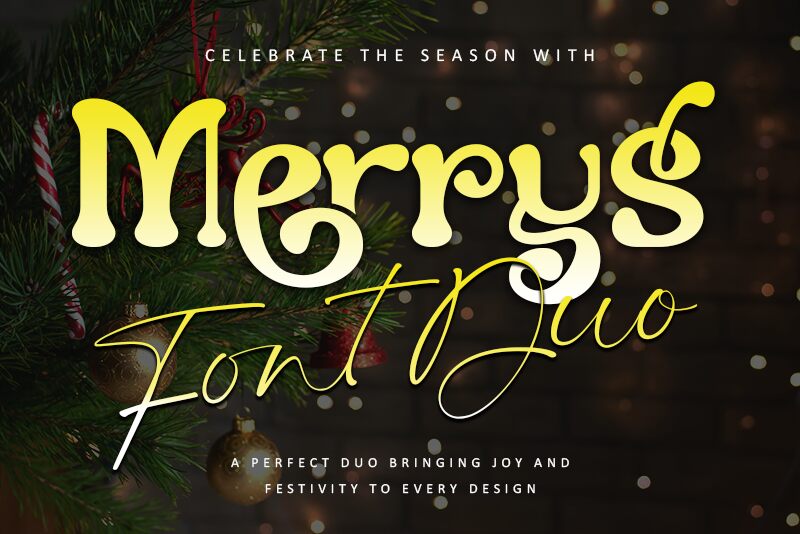
Merrys font is a cheery holiday-style free font designed and released by Letterara. The single-style family has an elegant and modern character with vibrant and expressive letters. Each of them is selectively decorated with wavy lines usually on its end. Its dynamic and cheerful characteristics make this typeface a great quirky choice for your design project.
The font can be applied to modern, print, digital, and trendy projects needing a sense of adventure and joy. Usable for party invitations, travel blogs, social media graphics, web typography, logotypes, business cards, and posters.